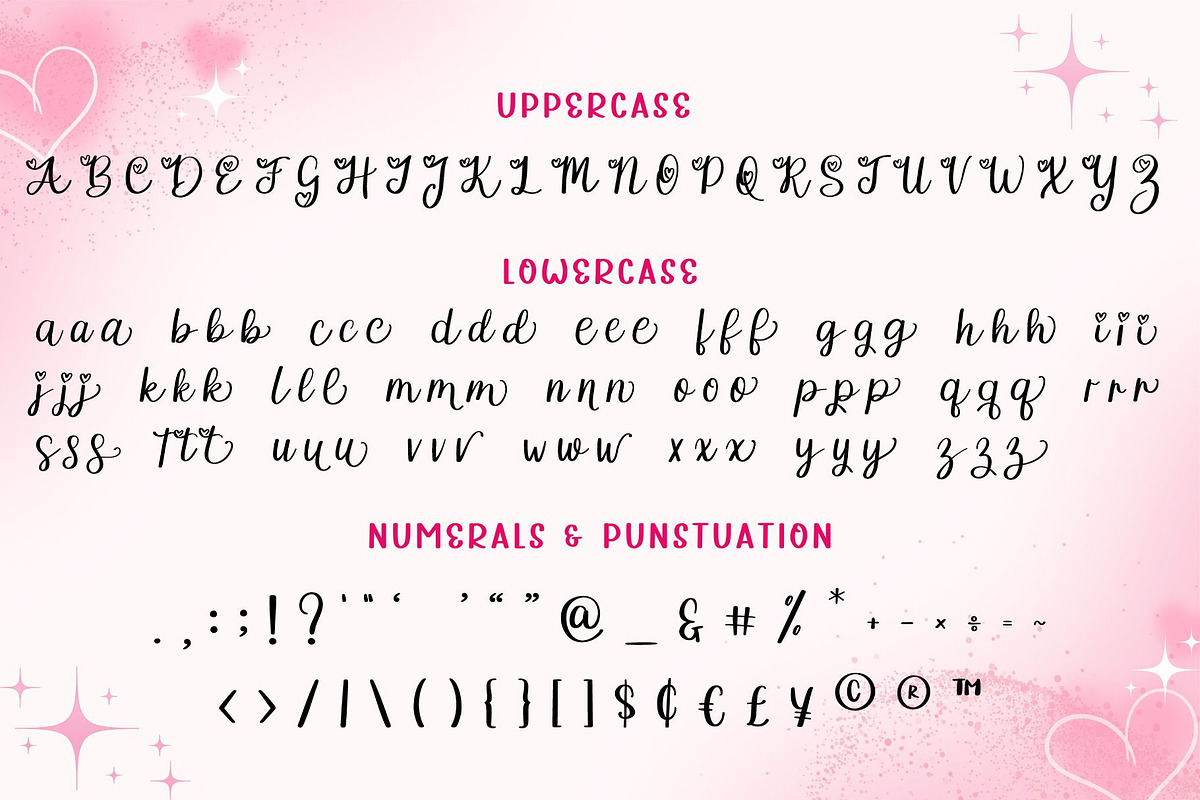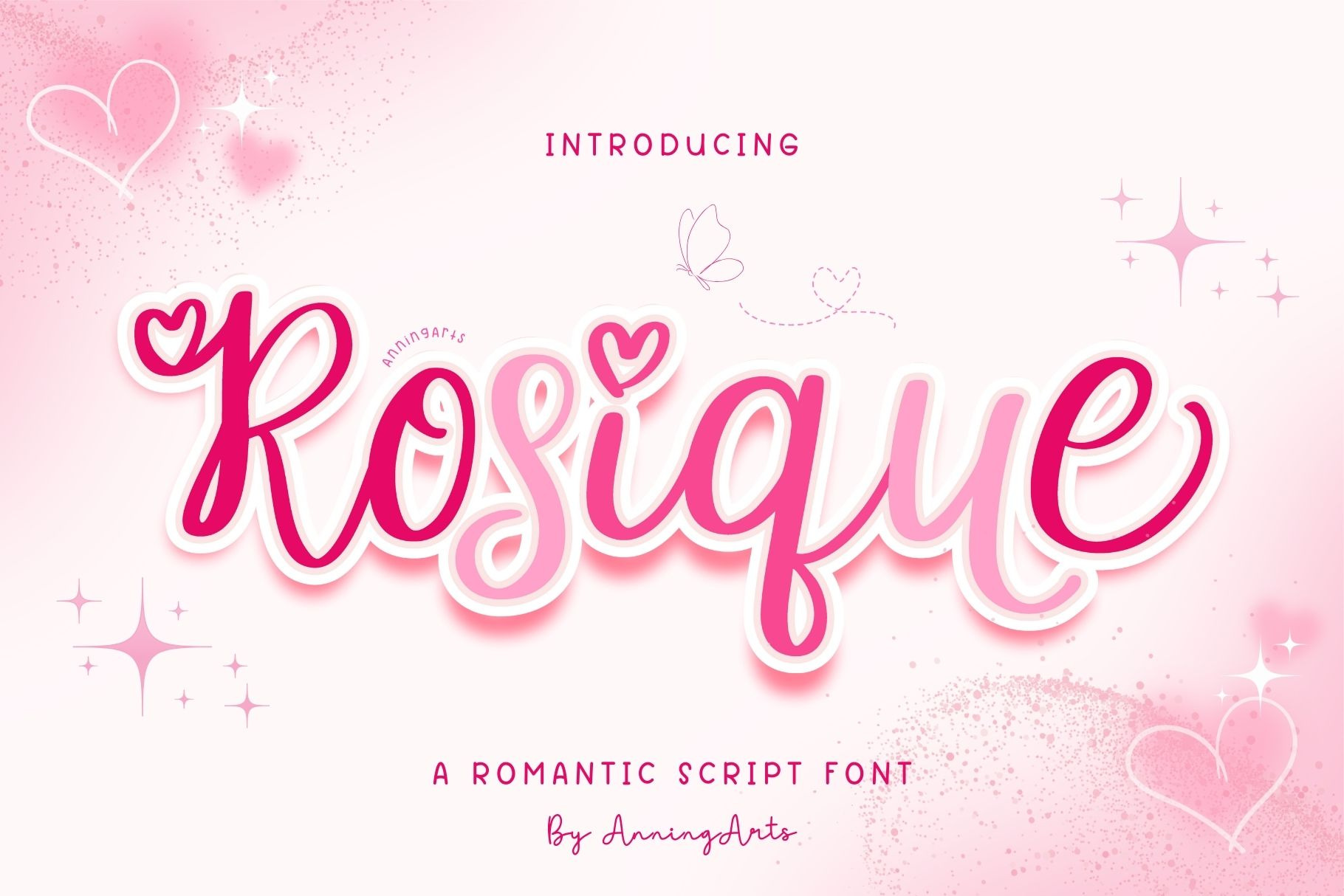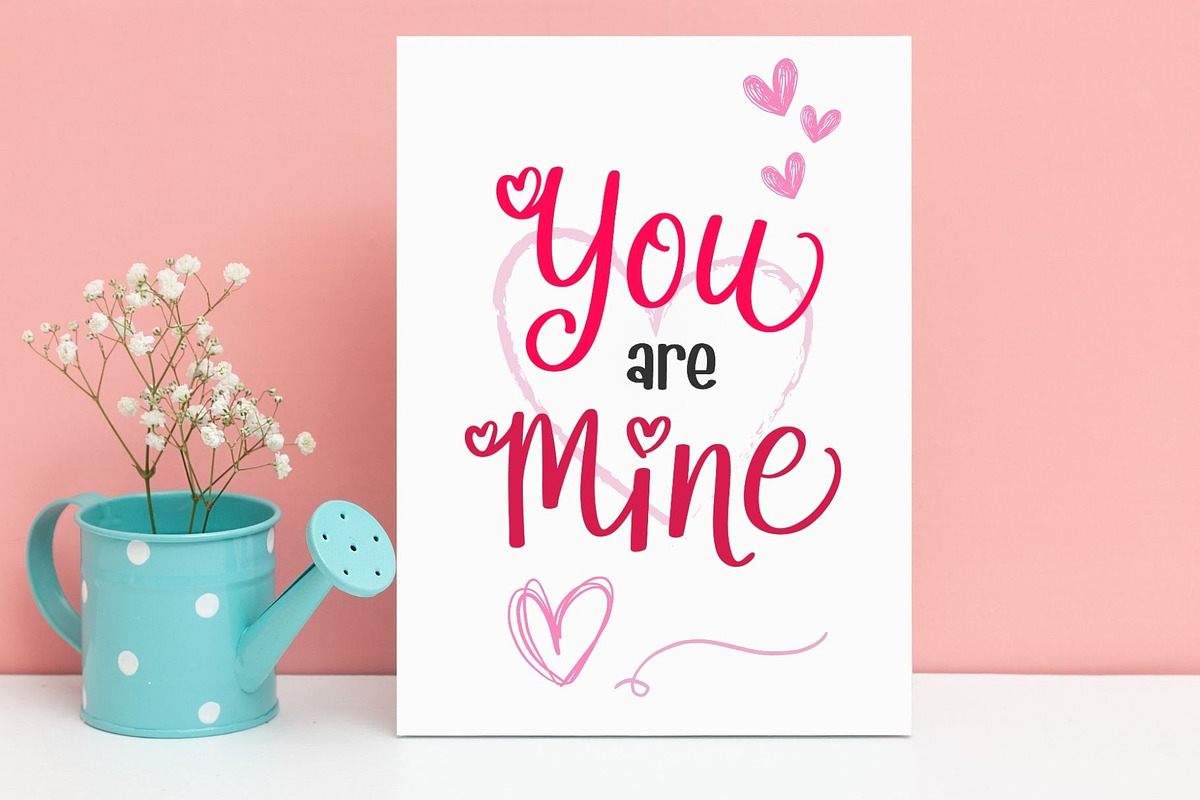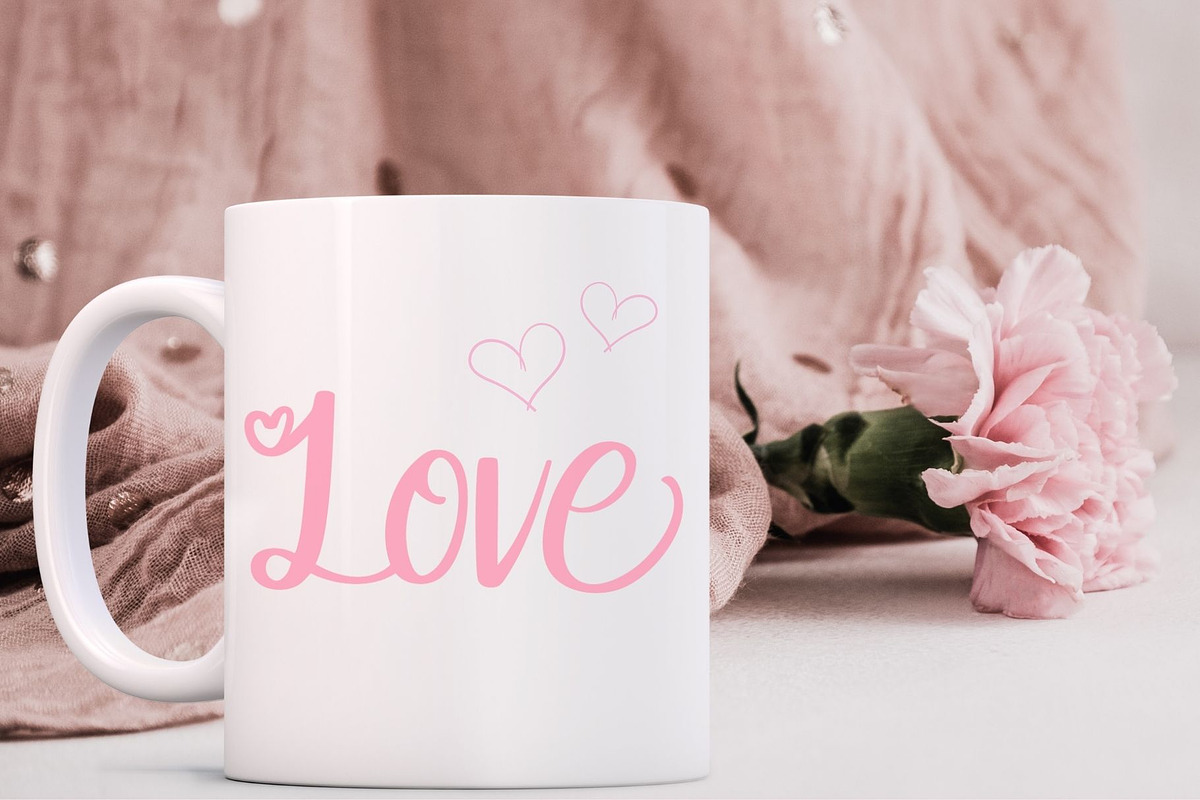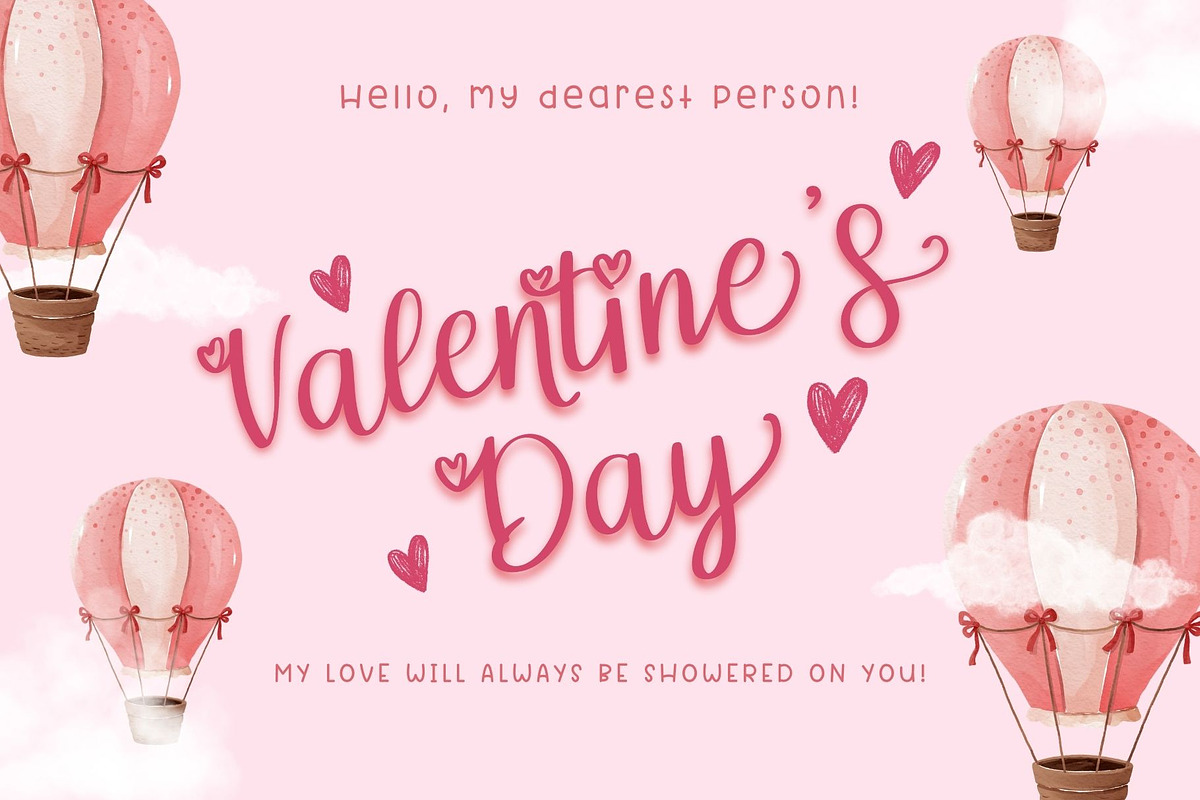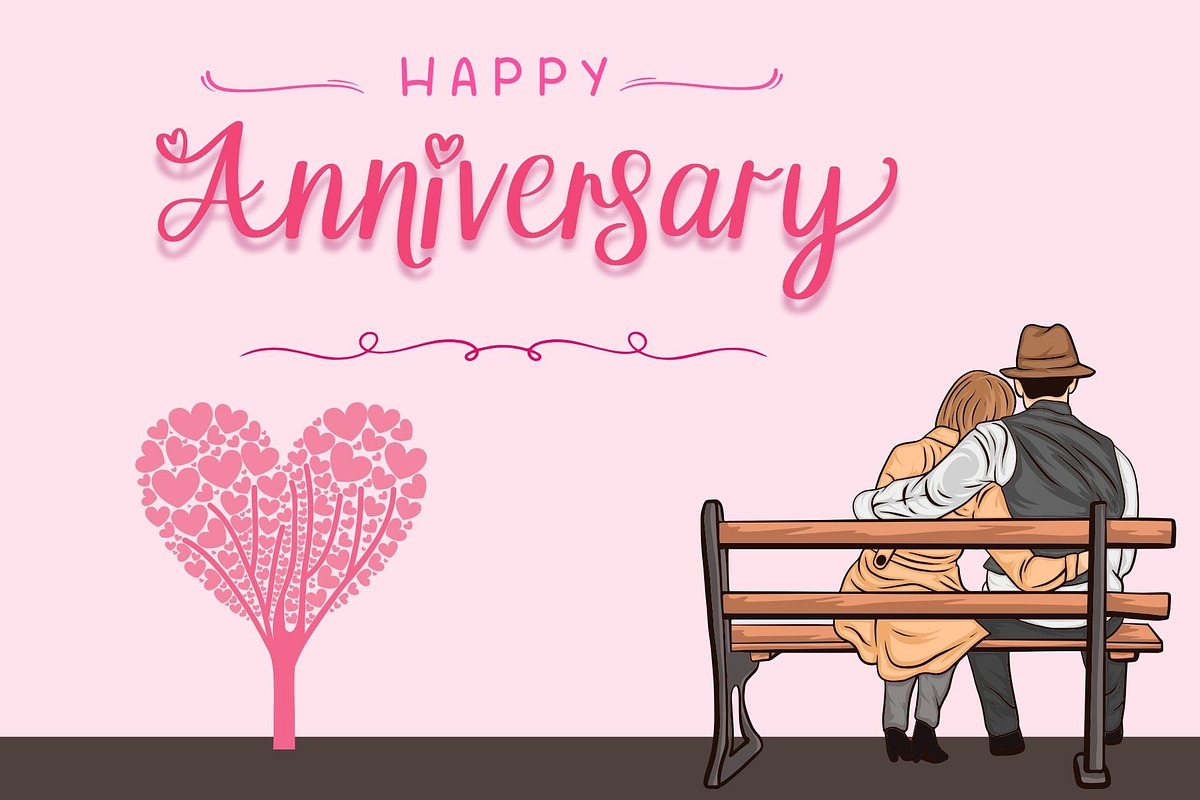
Rosique - Script Font
Rosique is a romantic script font with charming heart details, perfect for Valentine’s Day, wedding invitations, love letters, and feminine branding. This handwritten font features smooth curves and an elegant flow, adding a sweet and stylish touch to any design.